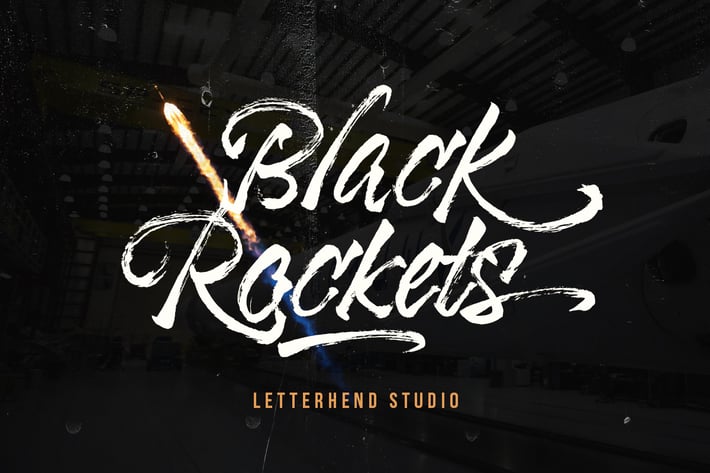
Black Rockets - Dry Brush Font
letterhend
Introducing, Black Rocket- a hand drawn dry brush script which is purposely made for headline, display or logotype, and signature. This type of font perfectly made to be applied especially in logo, and the other various formal forms such as invitations, labels, logos, magazines, books, greeting / wedding cards, packaging, fashion, make up, stationery, novels, labels or any type of advertising purpose.
+ uppercase & lowercase
+ numbers and punctuation
+ multilingual
+ alternates & ligatures